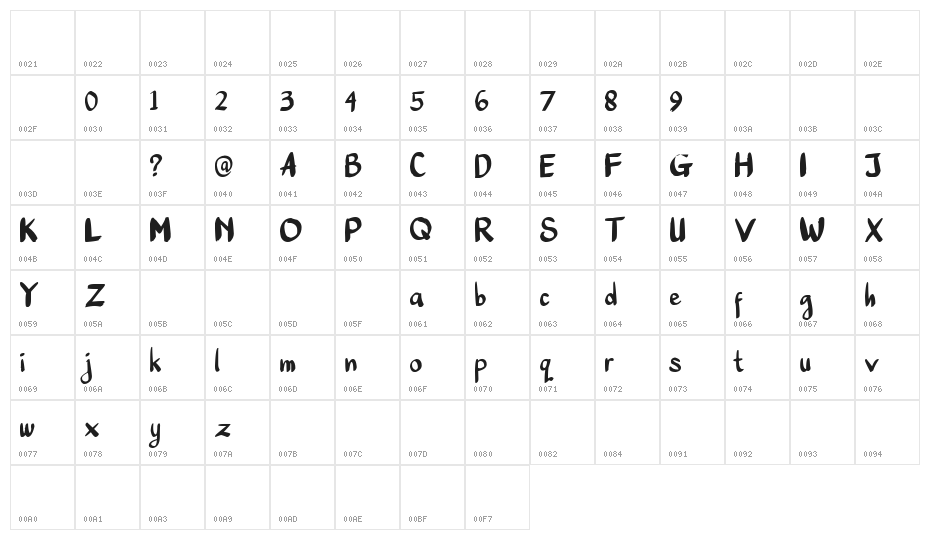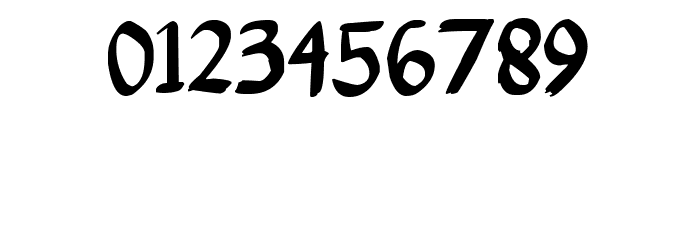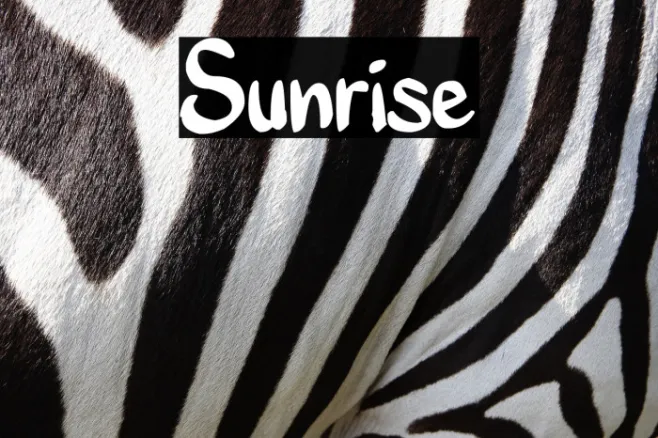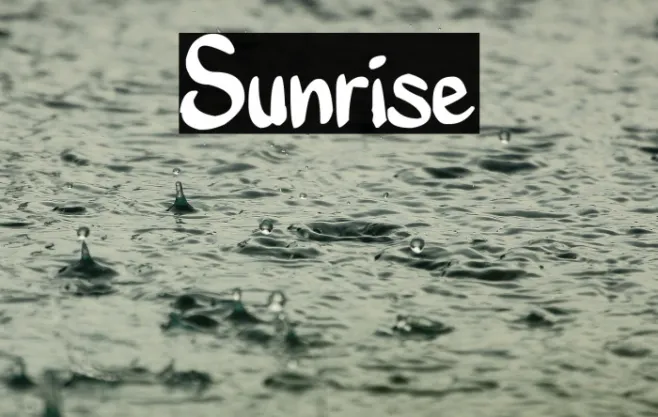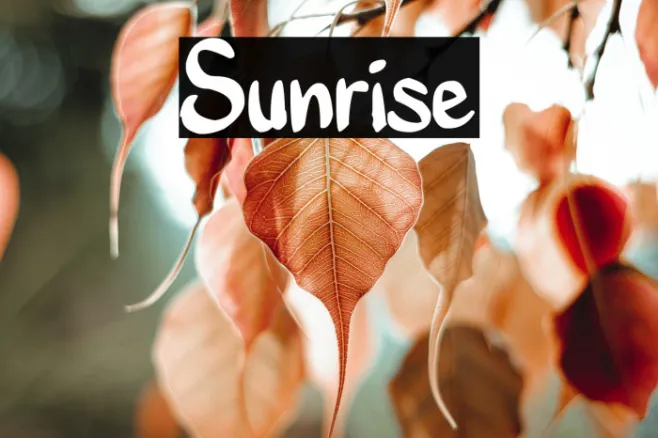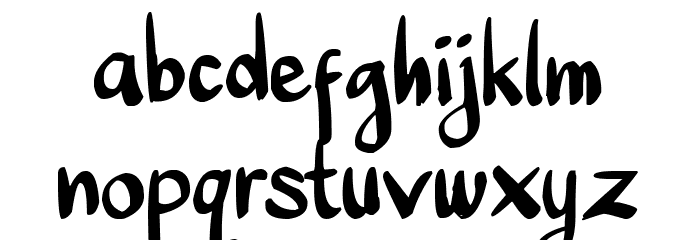
Sunrise Font
Sunrise Description
This font exudes a playful and energetic vibe, characterized by its bold and dynamic strokes. The letters have a hand-drawn appearance, giving them a personal and informal touch. The uppercase and lowercase letters maintain a consistent style, with rounded edges and varying stroke widths that add to the font's lively nature. The numbers and special characters follow the same design principles, ensuring a cohesive look across all elements. The font's overall style is casual and approachable, making it suitable for projects that aim to convey warmth and friendliness.
| Proposed Projects | Ideal for children's books, greeting cards, playful branding, and social media graphics. |